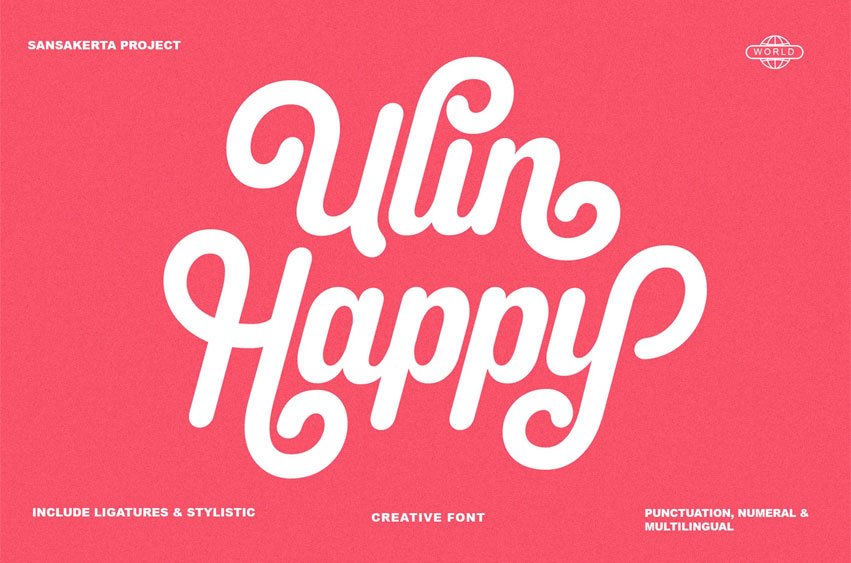
Ulin Happy Font is a stylish font It has both modern and Vintage look. Create bold, gorgeous headlines and elegant designs with a vintage flair.
Ulin Happy font is perfect for various projects like logos & branding, invitations, stationery, wedding designs, social media posts, advertisements, printed quotes, product packaging, product designs, labels, photography, watermarks, special events or anything else.
Ulin Happy is also included full set of:
- uppercase and lowercase letters
- multilingual support full latin simple language
- numerals
- punctuation
- Stylistic Set
- Alternate